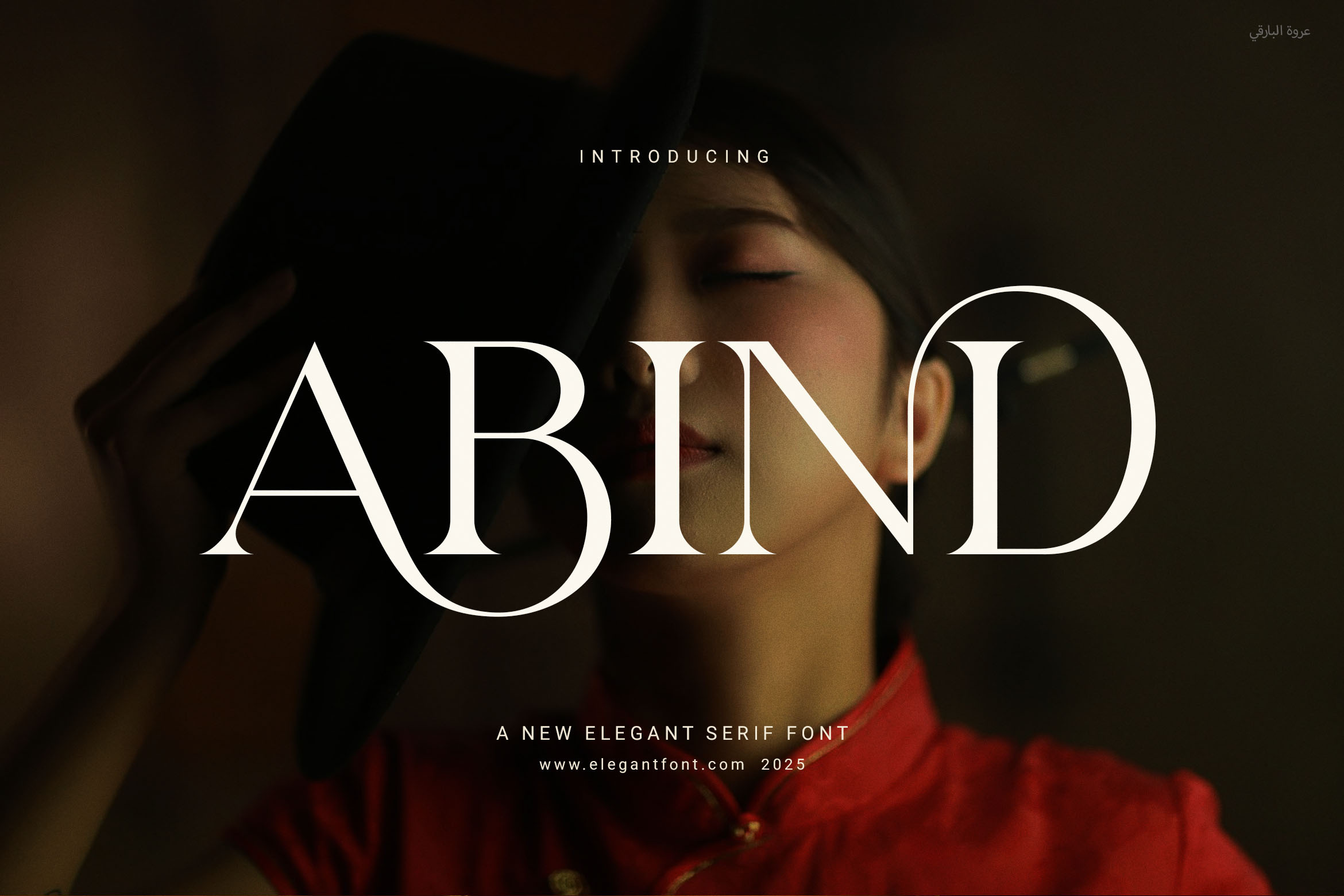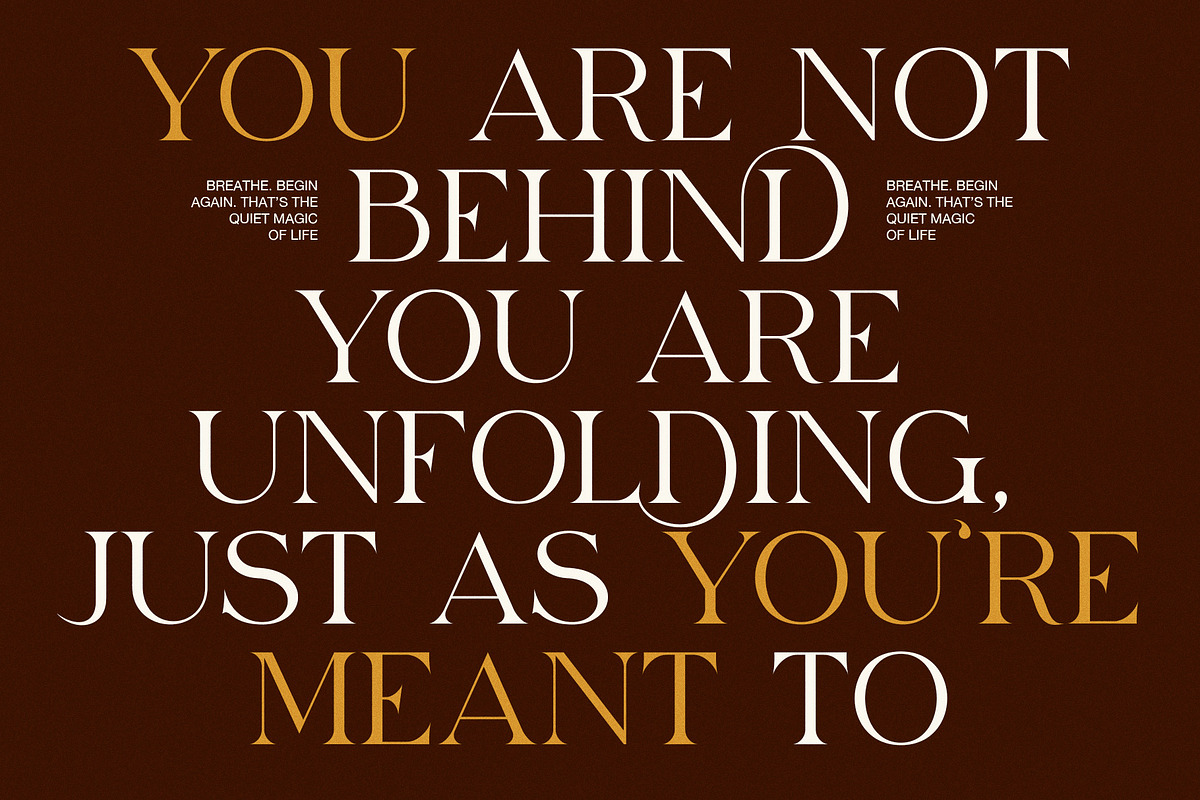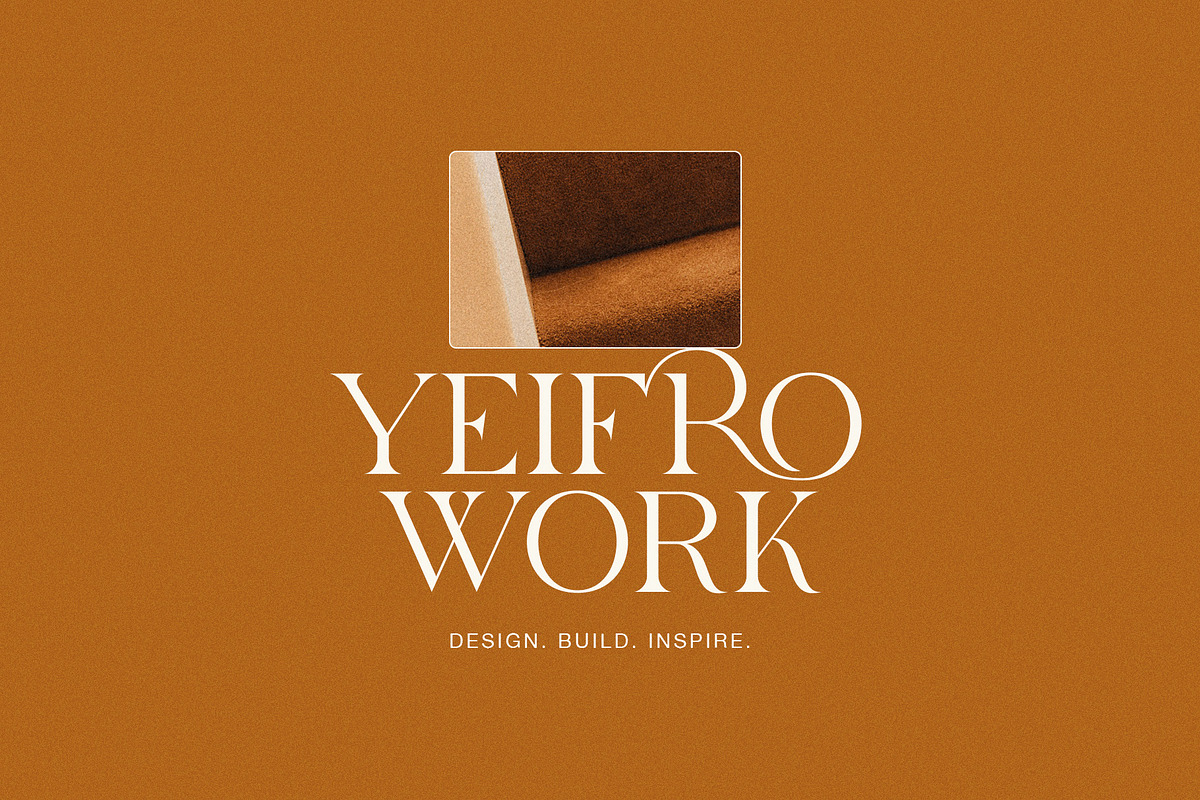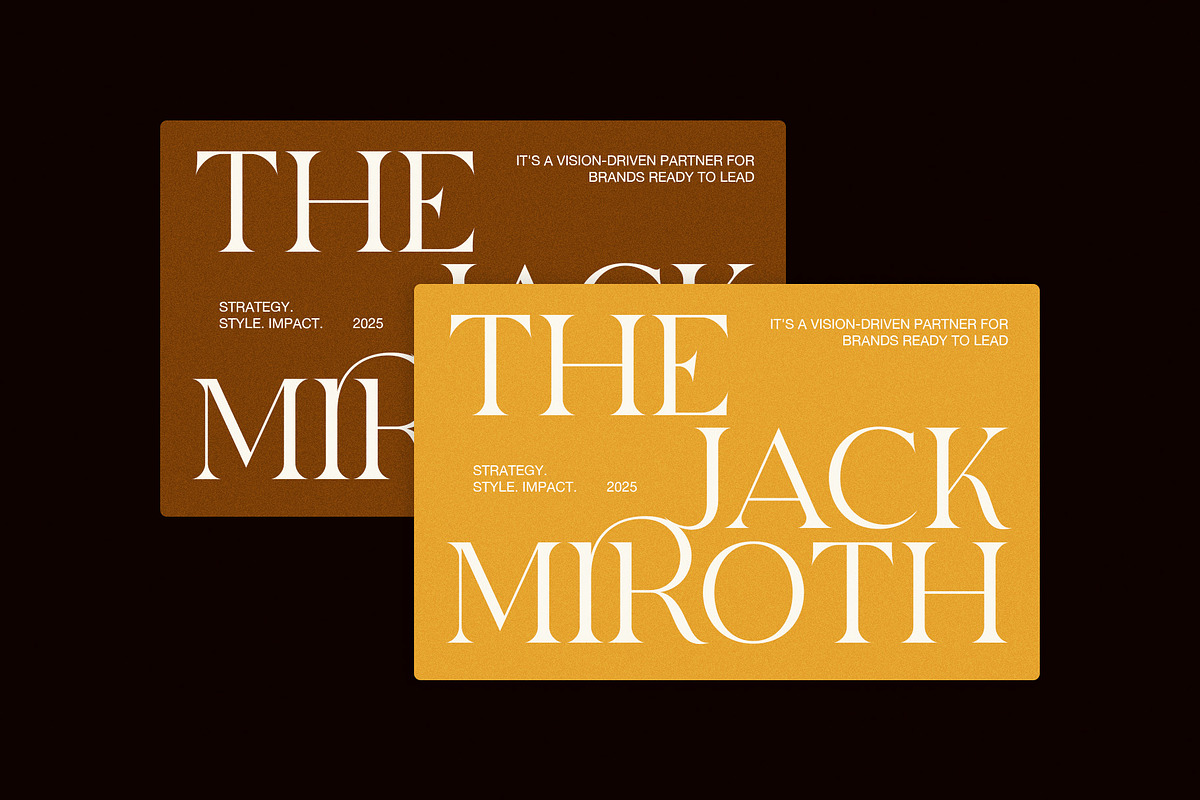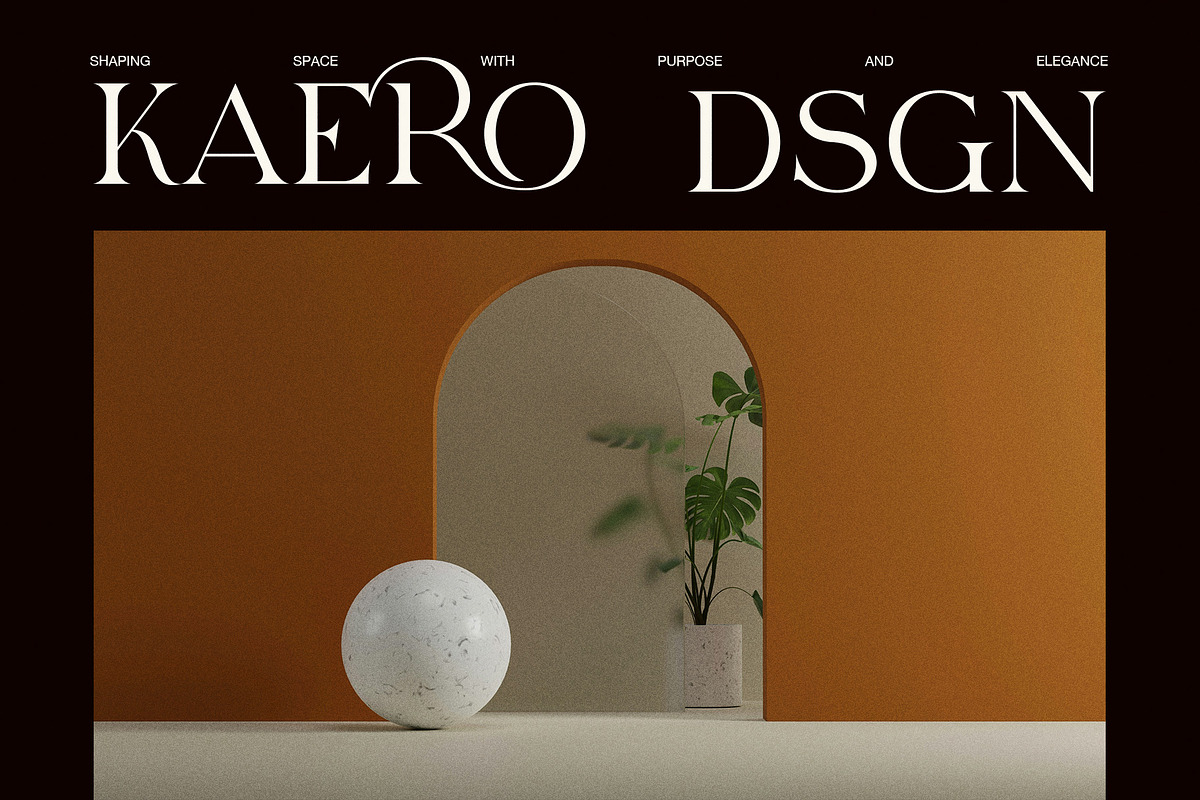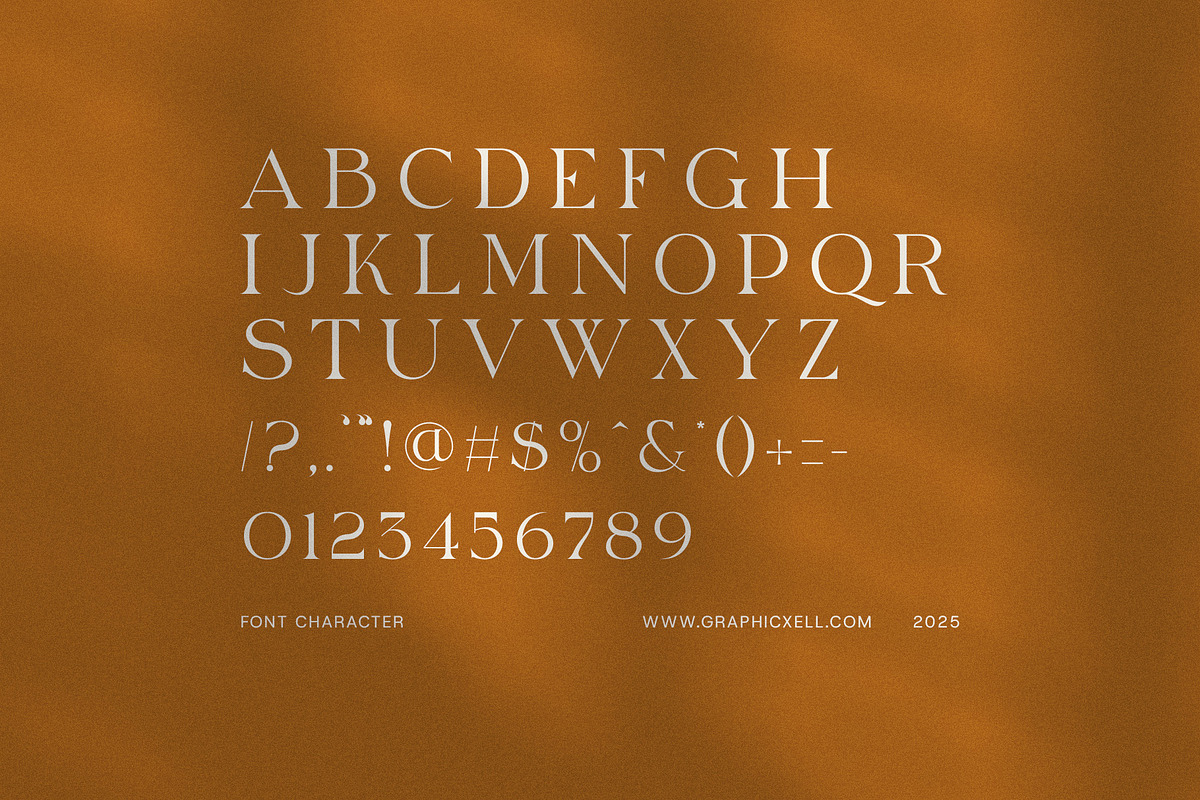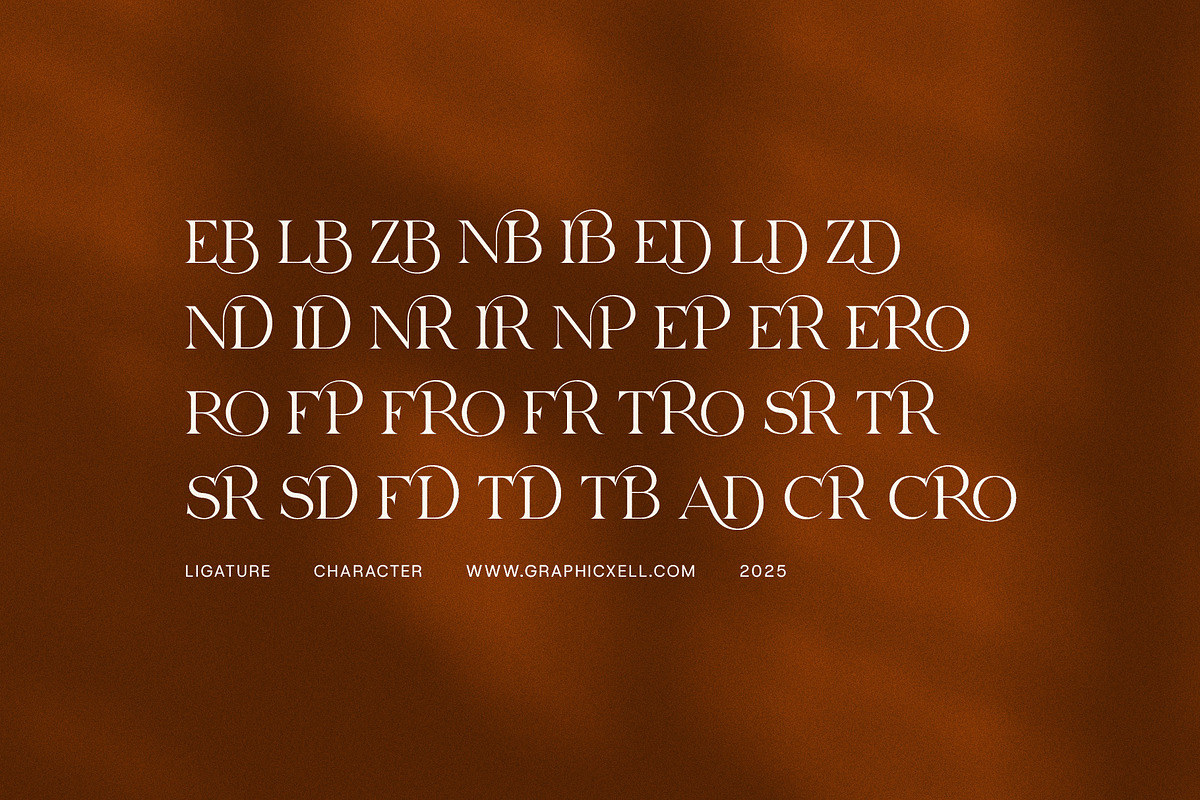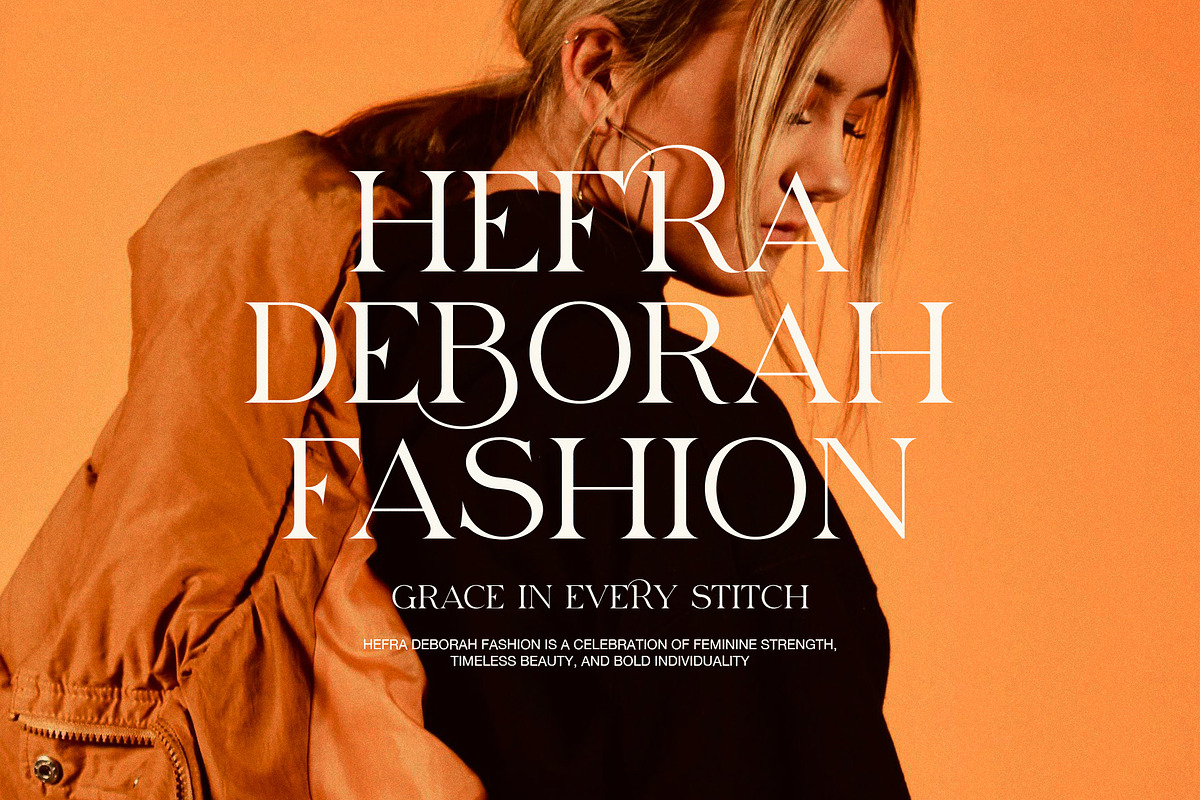
Abind Modern Serif Font
Abind – A Modern Serif Font with Timeless Elegance
Abind is a clean and modern serif font designed to elevate your branding. With smooth curves and sharp details, it combines classic beauty with a fresh twist. Because of its balanced letterforms, Abind offers both style and strong readability.
Whether you’re designing for print or digital use, this font brings a refined and professional look. It fits perfectly in logos, websites, social media graphics, and packaging. Moreover, its modern style works well across many industries, from fashion to food and beyond.
Key Features of Abind:
Elegant serif shapes with modern flair
Functional ligatures and alternates for extra style
Smooth spacing and sharp lines for a polished finish
Works well at all sizes—from headers to body text
Includes full uppercase, lowercase, numbers, and punctuation
In addition, Abind gives you creative control. You can mix ligatures and alternates to create a unique layout. As a result, each design feels more personal and custom-made. It’s especially useful for branding projects that need a luxurious and classy tone.
Because of its versatility, you can also use Abind for wedding invitations, magazine covers, product packaging, and more. It’s simple to apply and adds instant charm to your work.
In short, Abind is a reliable serif font for anyone seeking a modern, elegant, and easy-to-use typeface. If you want your design to feel stylish and timeless, Abind is the perfect fit.*